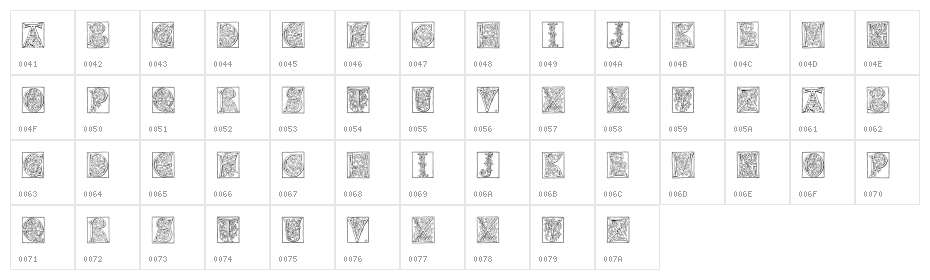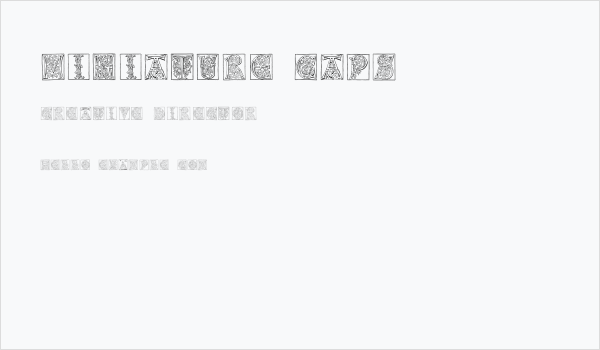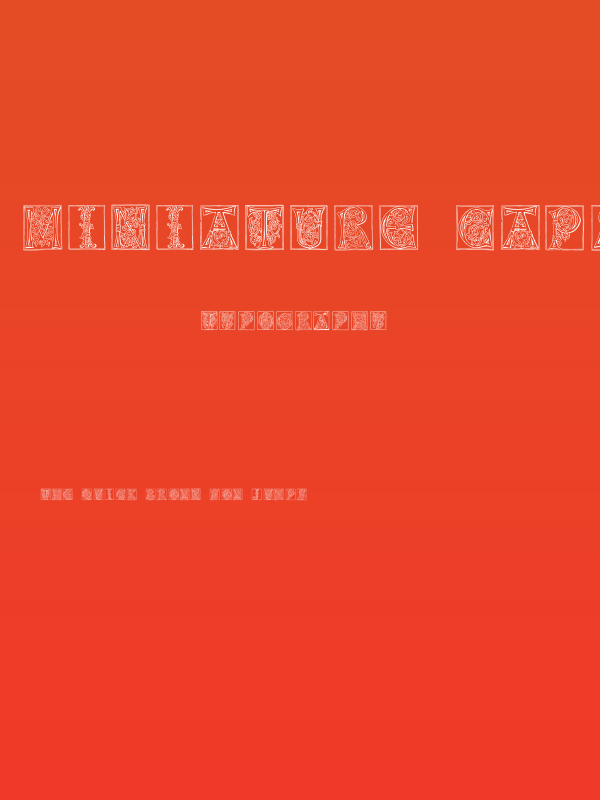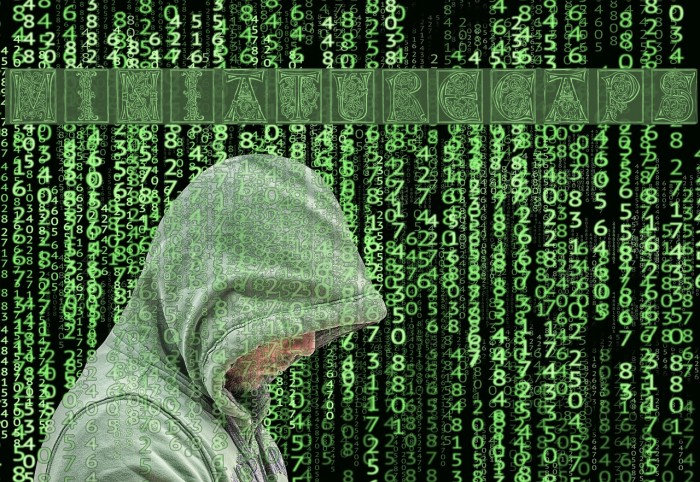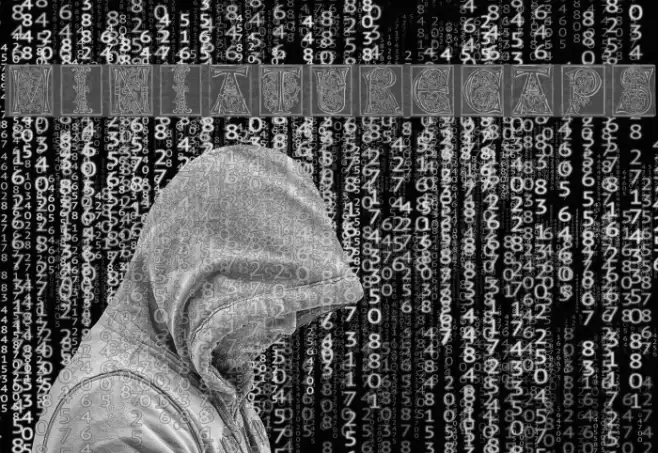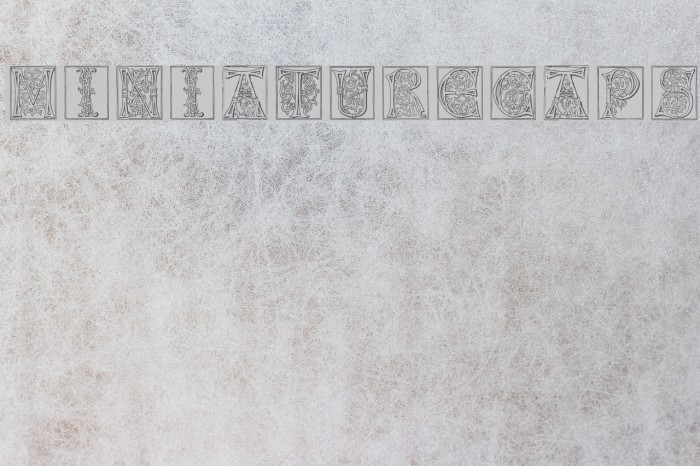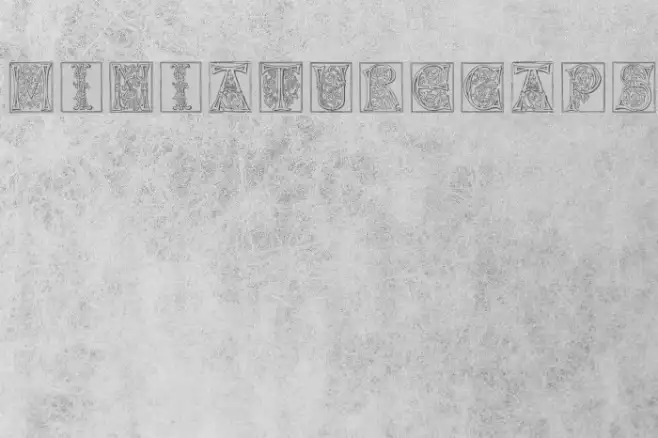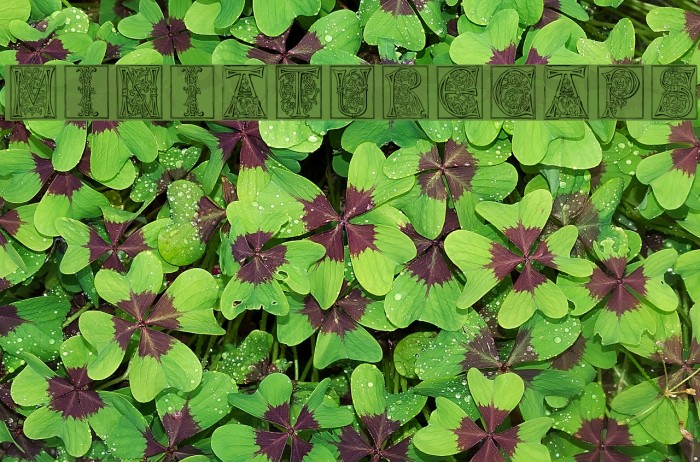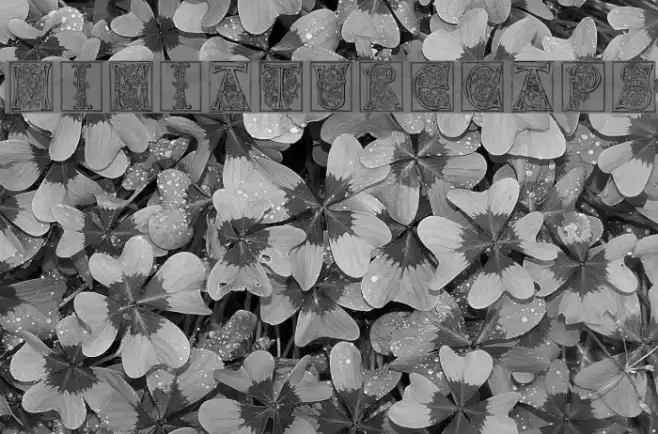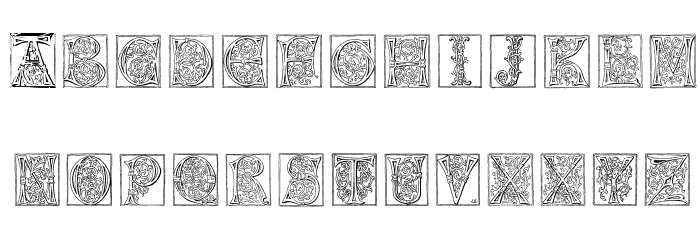
Miniature-Caps Font
This font features an ornate and decorative style, reminiscent of illuminated manuscripts. Each letter is intricately designed with elaborate patterns and embellishments, creating a sense of historical elegance. The characters are enclosed within square borders, enhancing their visual impact and giving them a framed appearance. The intricate detailing within each letter suggests a high level of craftsmanship, making it suitable for projects that require a touch of sophistication and artistry. The overall aesthetic is both vintage and timeless, capturing the essence of classical typography.
| Use Case | Logos, Headlines, Decorative purposes |
| Proposed Projects | Ideal for use in wedding invitations, historical documents, book covers, and any project requiring a classical, artistic touch. |